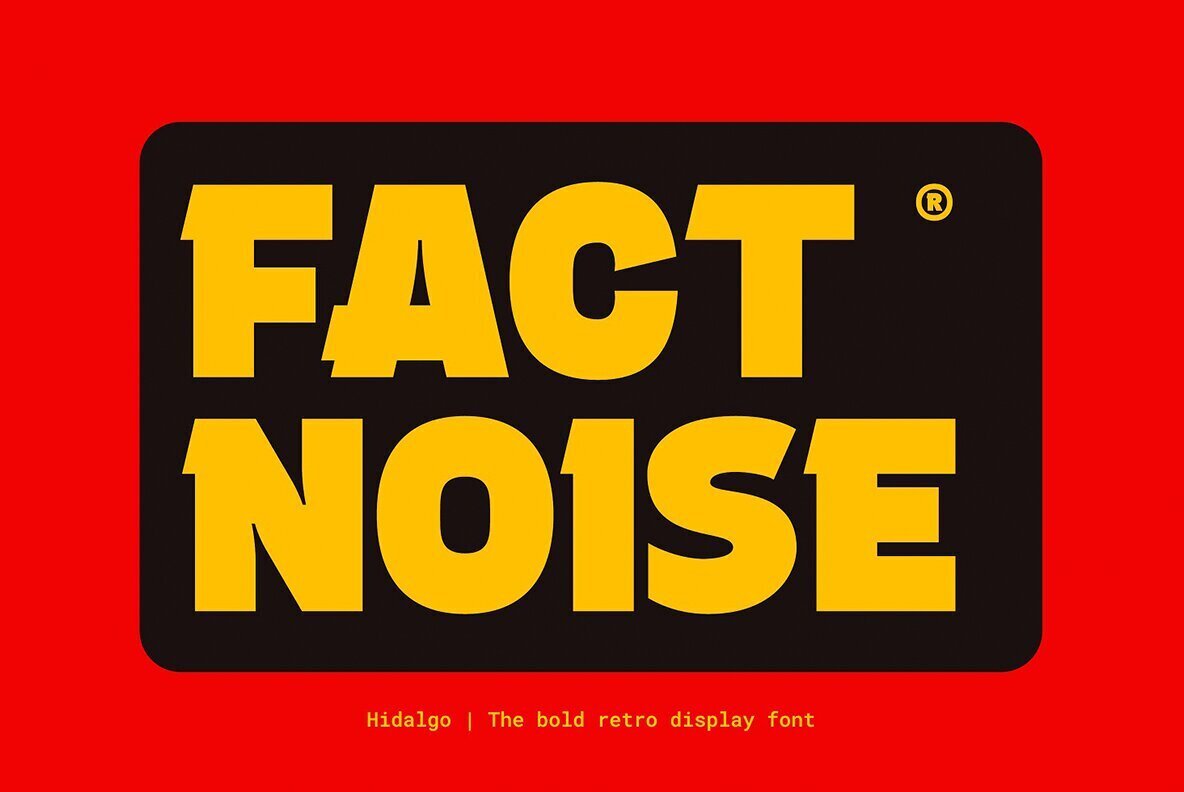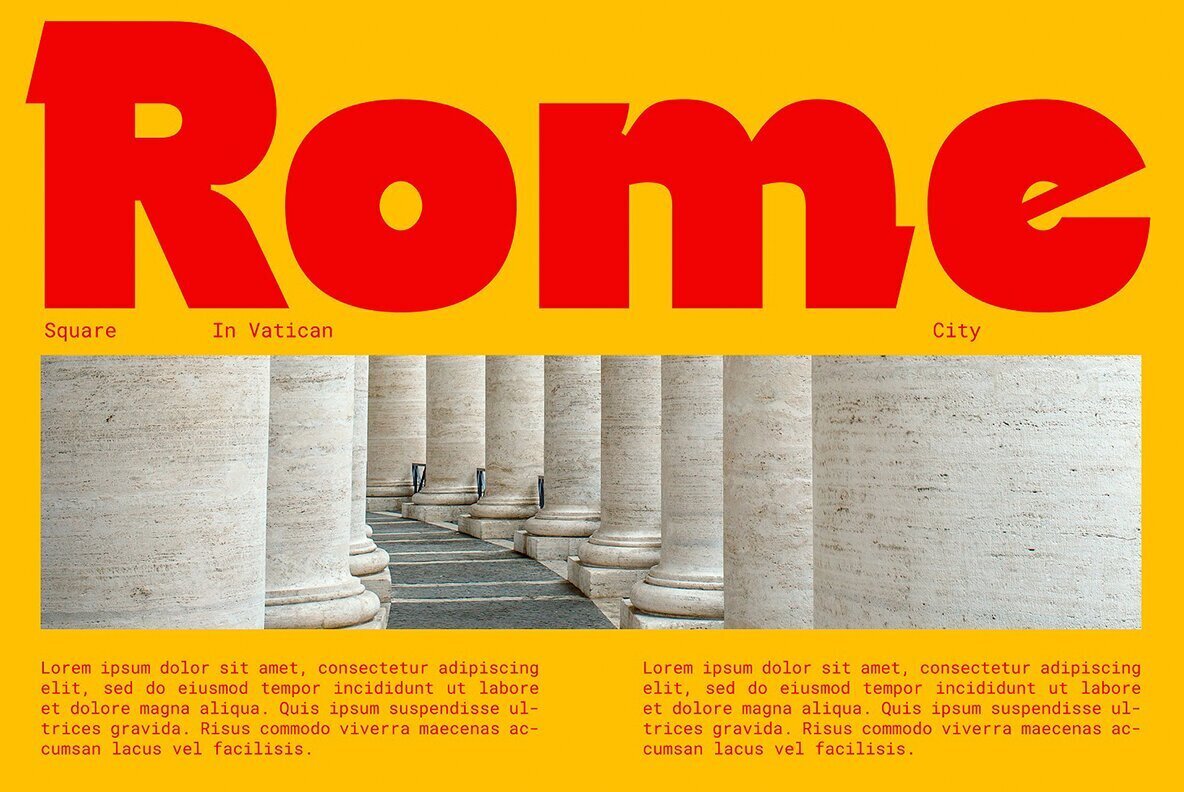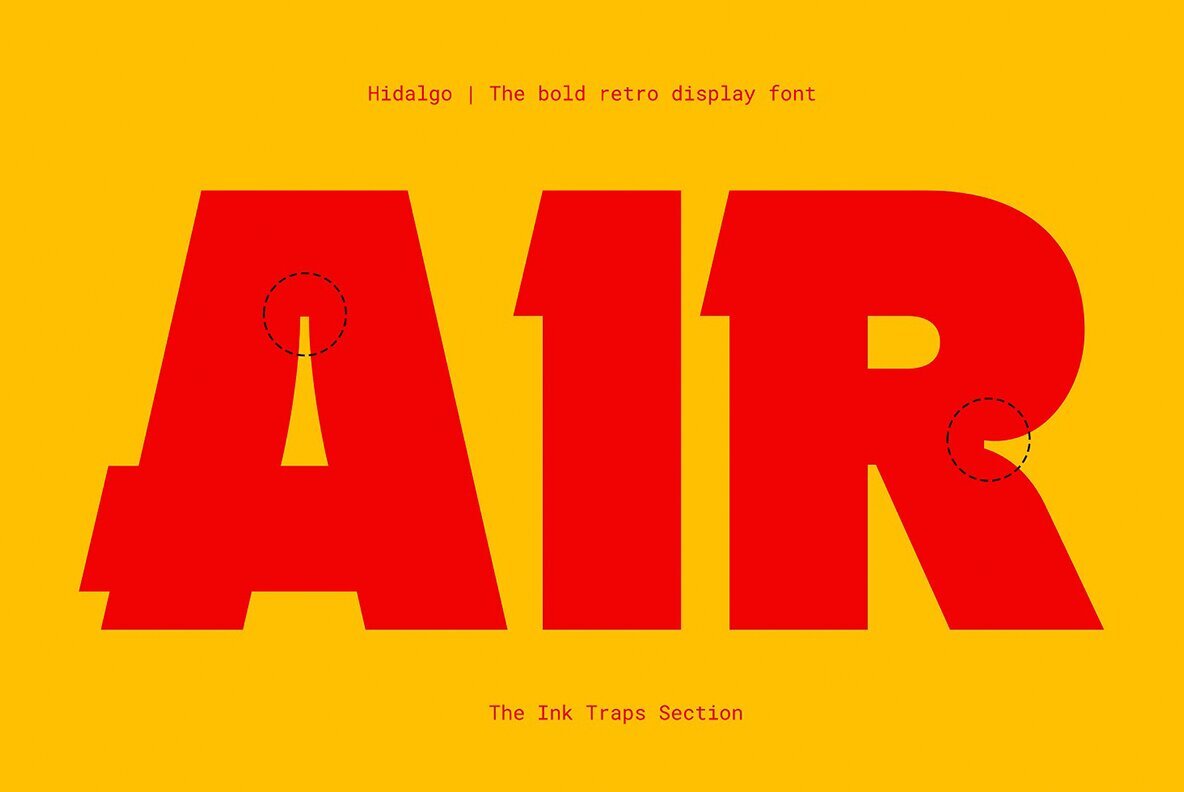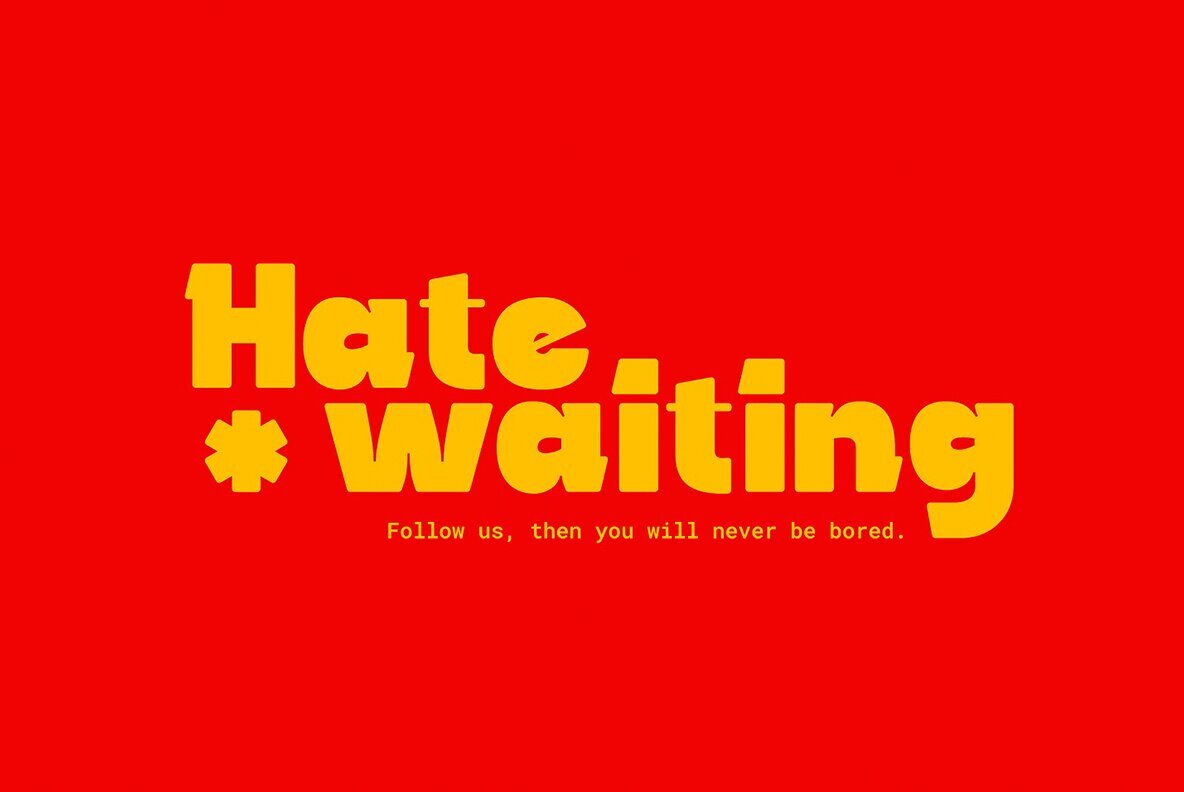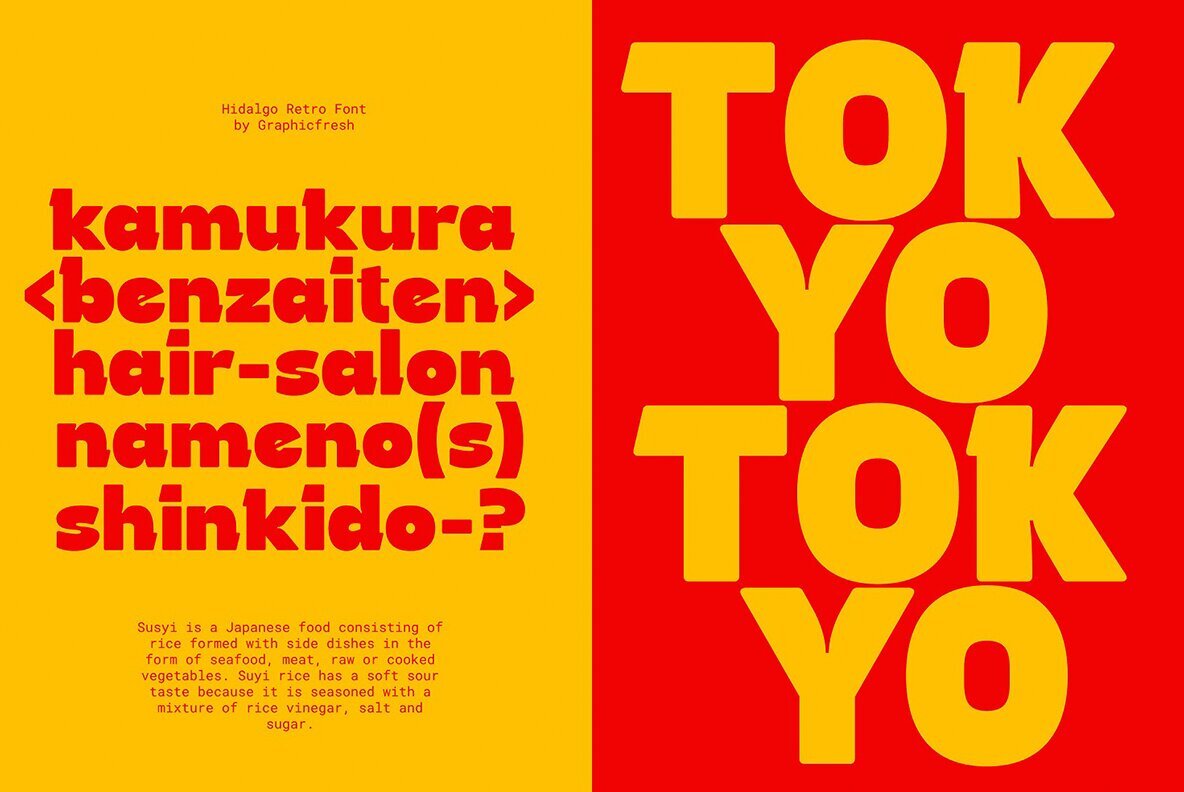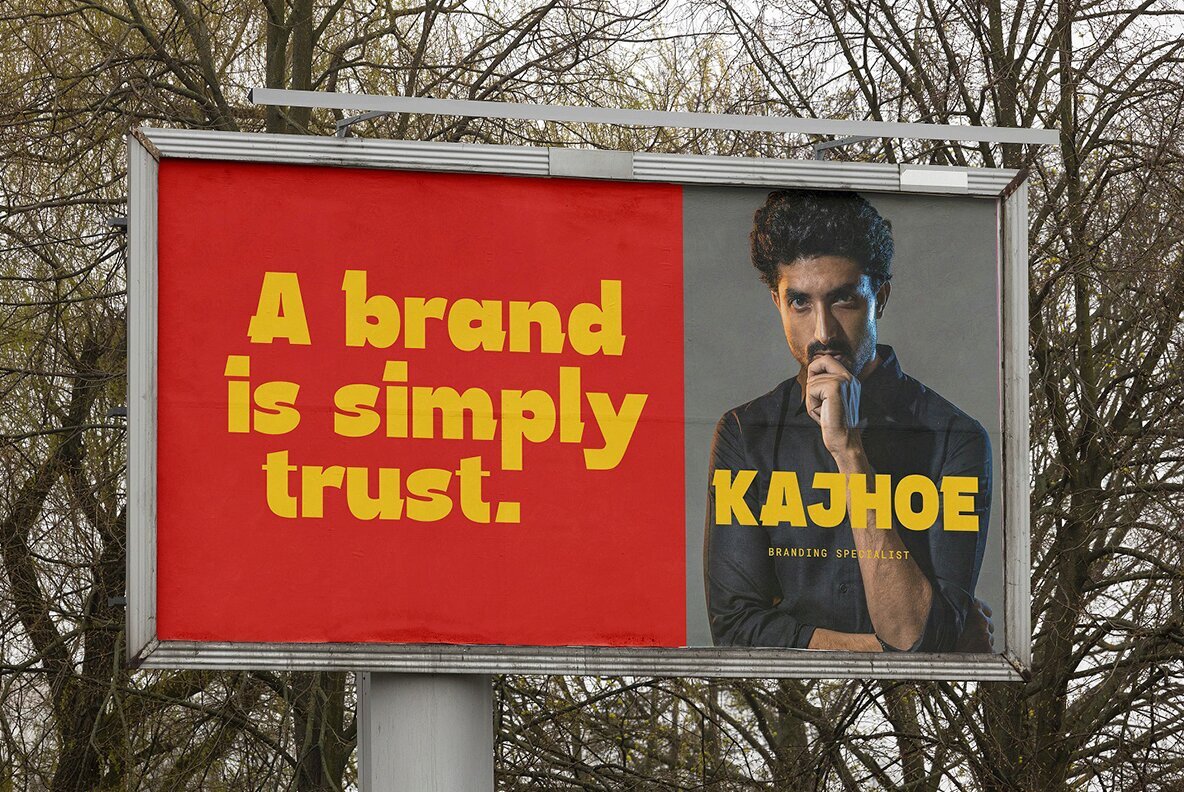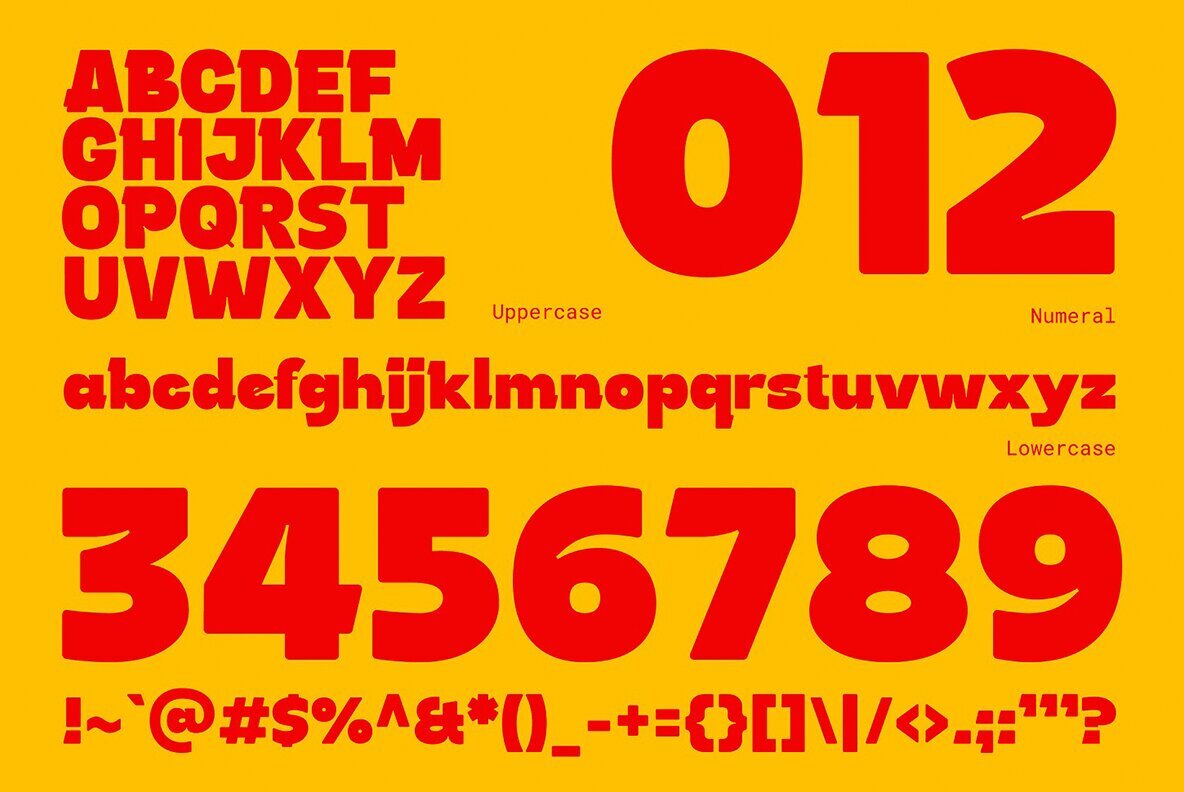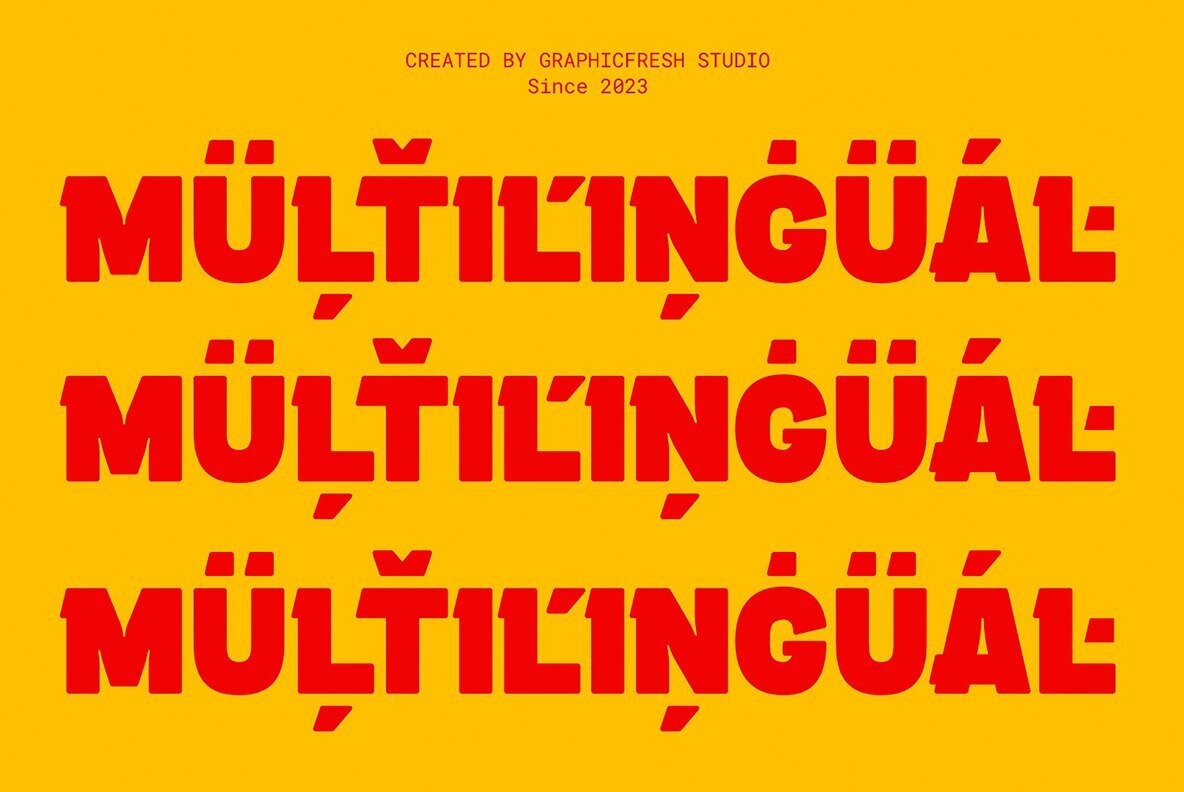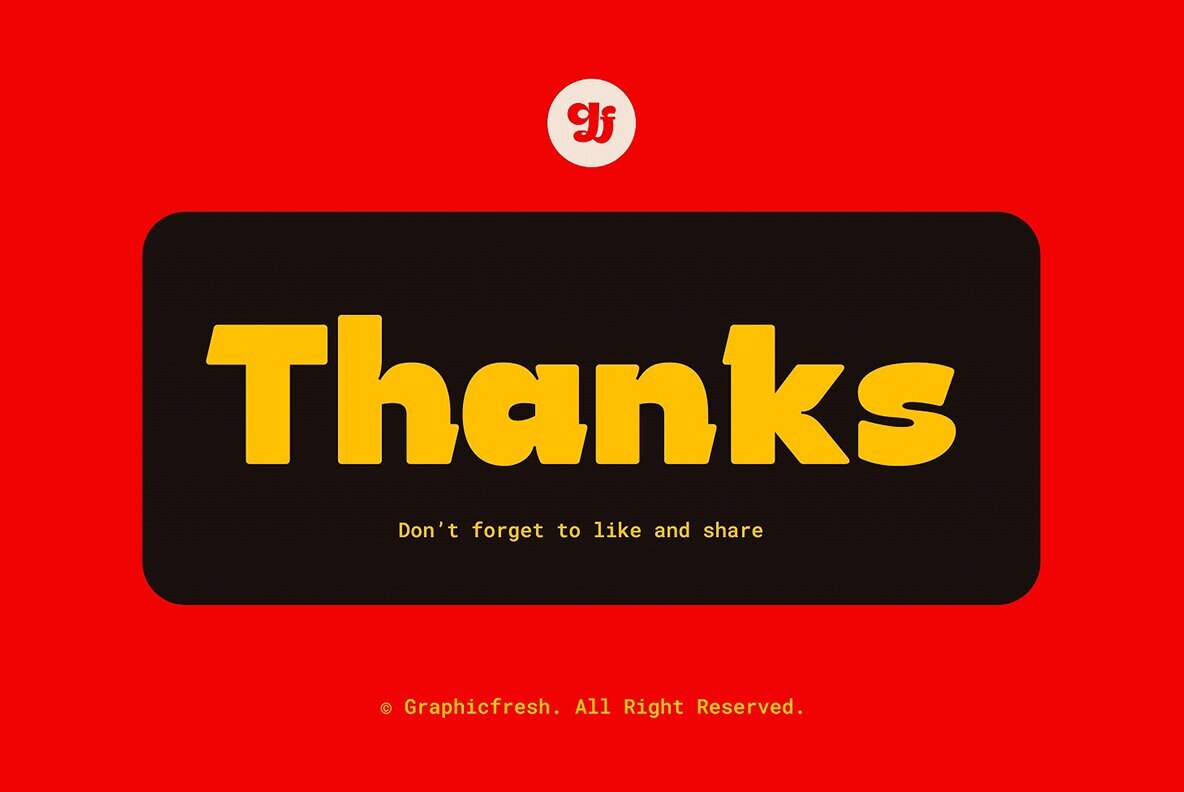
Hidalgo Font
Hidalgo by Graphicfresh offers a versatile and bold font collection, ideal for crafting retro, classic, and vintage designs. Drawing inspiration from the standout styles of the 70s, 80s, and 90s, this font brings a modern elegance to your creative projects, whether you're working on posters, magazine layouts, or brand logos.Hidalgo: A Bold Font Inspired by Iconic Retro Styles